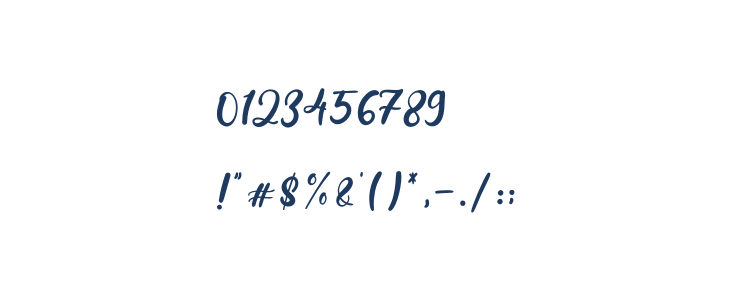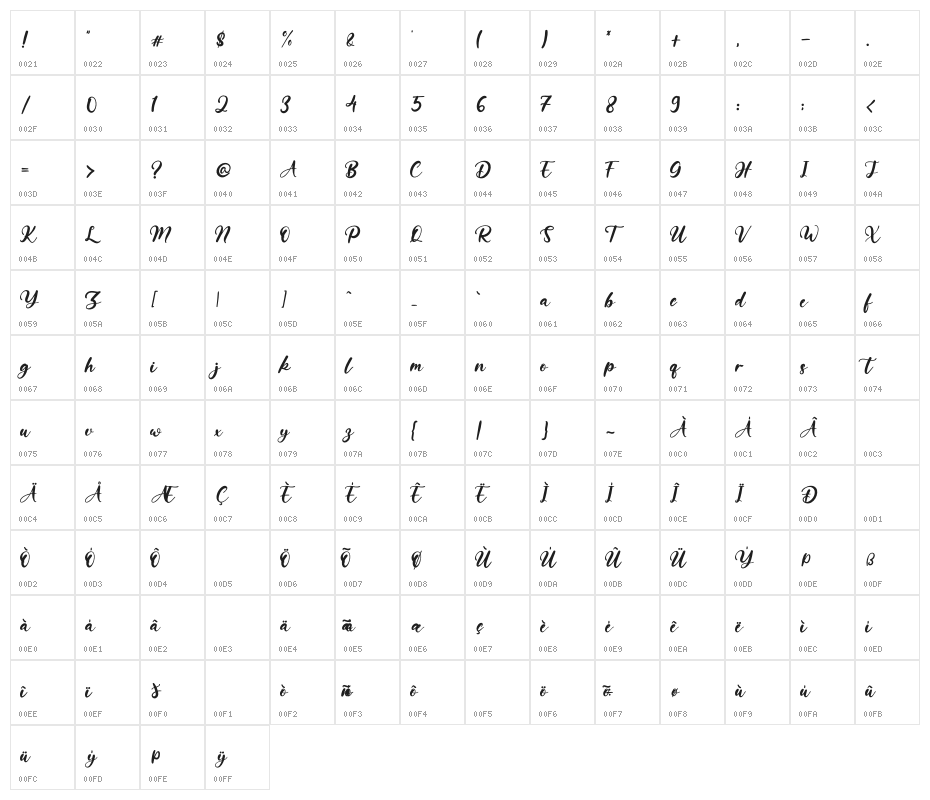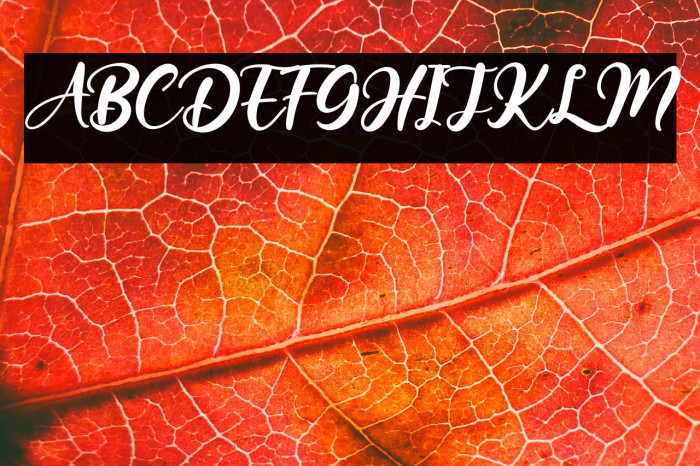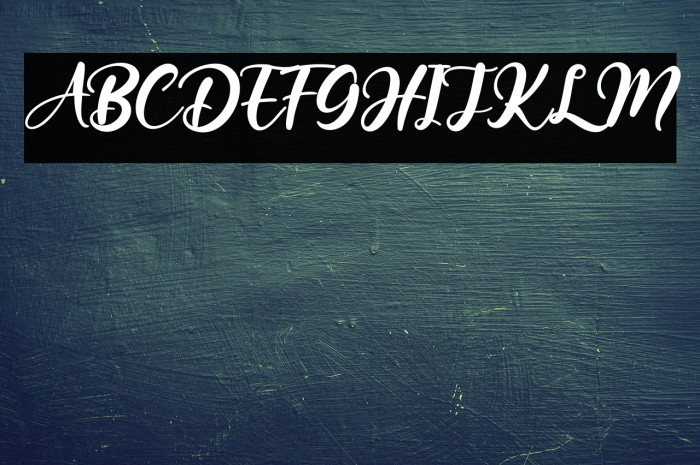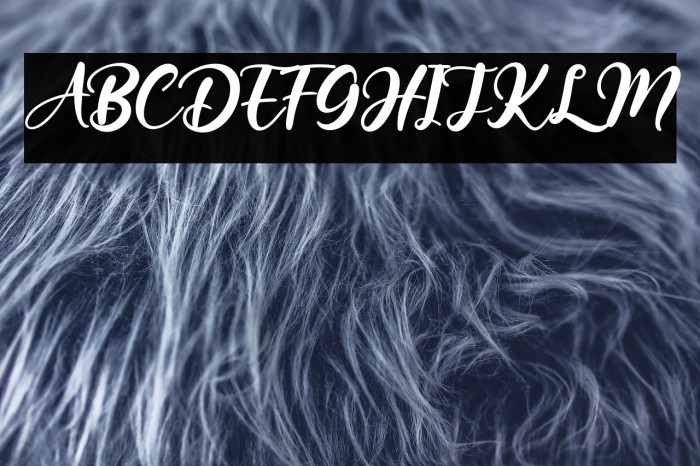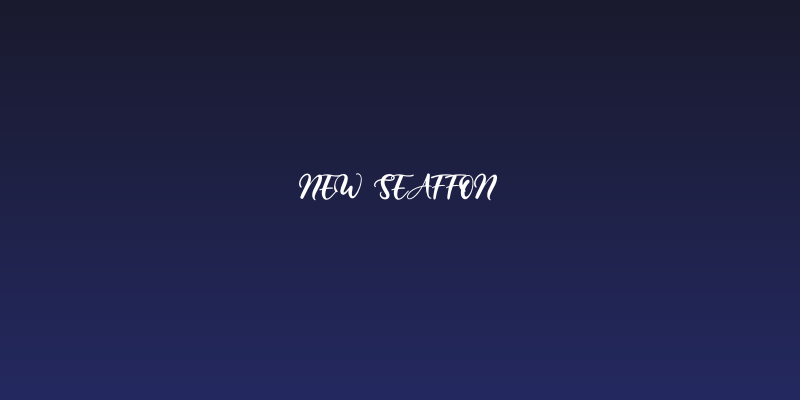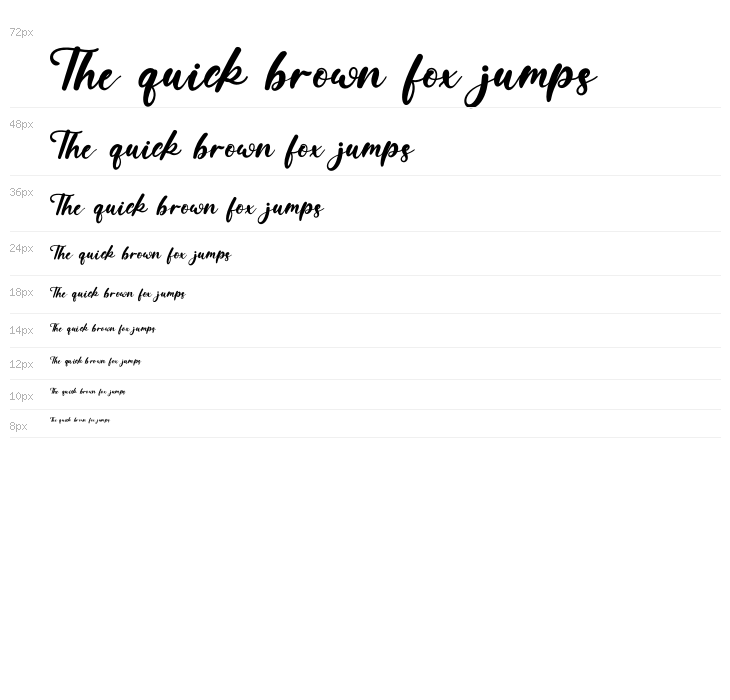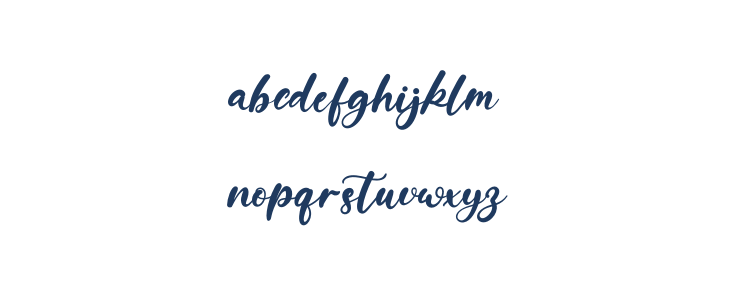
New Seaffon Font
New Seaffon Description
This font exudes a sense of elegance and sophistication with its flowing, cursive style. The characters are intricately designed, featuring smooth curves and delicate flourishes that give it a handwritten appearance. The uppercase letters are bold and prominent, while the lowercase letters maintain a consistent flow, enhancing readability. The numerals and special characters are crafted with the same attention to detail, ensuring a cohesive look across all text. This font is perfect for projects that require a touch of class and personality.